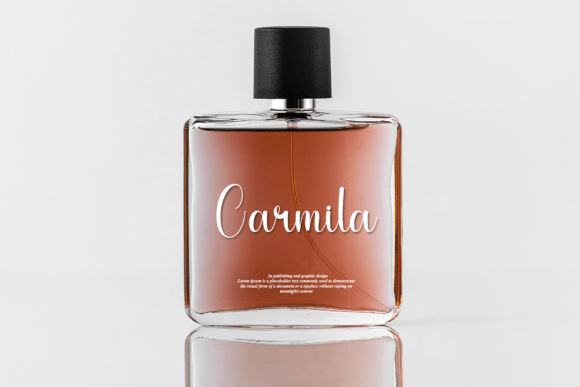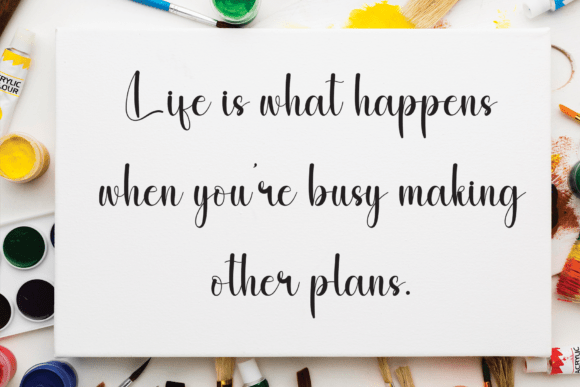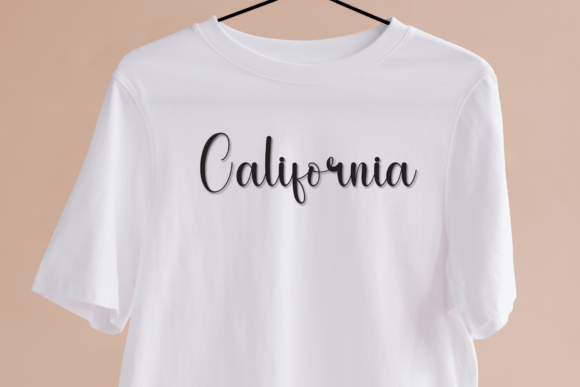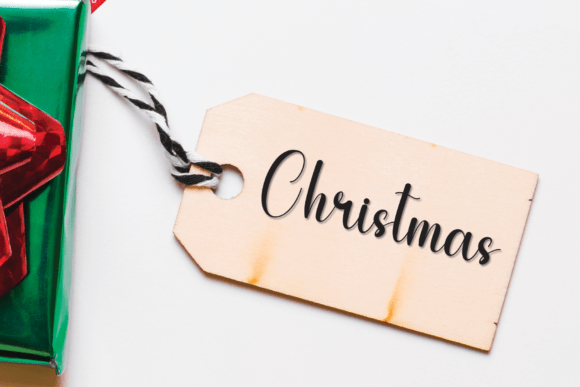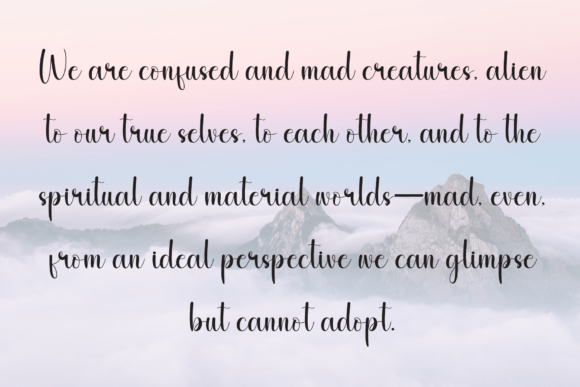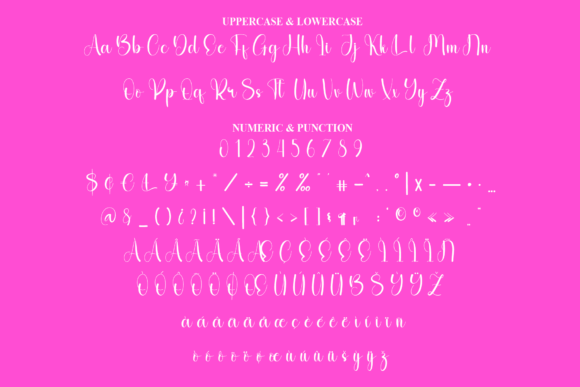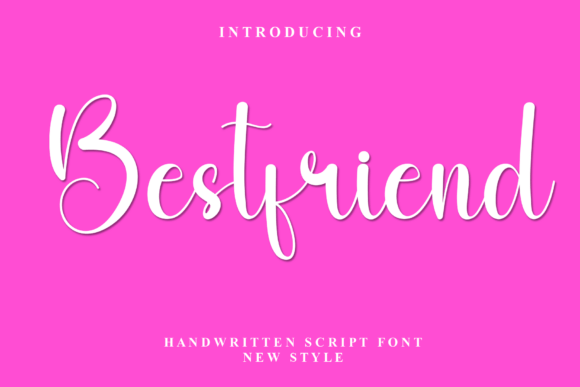
The Perfect Match: Discovering the Bestfriend Font
Remember that moment when you stumbled upon the perfect font for a project, and everything just clicked? It’s a feeling that’s hard to describe, but you know it when you see it. For designers, finding that one special font can be a game-changer, and today we’re excited to introduce you to a true gem – the Bestfriend Font.
This stylish script font is designed to add a touch of elegance and sophistication to any design. With its fluid curves and carefully crafted letterforms, it captures the beauty of hand-drawn calligraphy with a modern twist. Whether you’re creating logos, invitations, packaging, or social media graphics, the Bestfriend Font is the perfect companion to help you deliver your vision with refined and polished details.
As a valuable addition to any designer’s toolkit, the Bestfriend Font offers versatility and visual appeal in equal measure. Its natural flow and polished details make it an ideal choice for a wide range of projects, and we can’t wait to see how you’ll use it to create something truly special.
- Unique Characteristics: Bestfriend Font features a friendly, approachable feel with rounded edges and a subtle texture, making it perfect for casual and informal designs.
Designer Review: Bestfriend Font
Overall, I think the Bestfriend Font has some lovely qualities that make it a great choice for certain projects. Here are a few things that stand out:
- ✨ Friendly and approachable feel: The font’s rounded edges and soft curves give it a warm, inviting atmosphere that’s perfect for projects targeting a younger audience.
- ✨ Highly legible: Even at smaller font sizes, Bestfriend Font remains easy to read, making it a great choice for body text or content-heavy projects.
- ✨ Stylish and modern: The font’s sleek design and subtle flair make it a great choice for modern, trendy projects that need a bit of edge.
- ⚠️ Limited font weights: The current version of Bestfriend Font only includes a few font weights, which may limit its versatility in certain projects.
- ⚠️ Not ideal for formal or professional projects: While the font is stylish and modern, it may not be the best choice for formal or professional projects that require a more conservative, traditional look.
Overall, I think the Bestfriend Font is a solid choice for projects that require a friendly, approachable feel. With a bit more development to add more font weights and improve its versatility, it could be a real winner in the design world.
Getting the Most Out of the Bestfriend Font
To get the most out of the Bestfriend Font, consider the following tips:
- Pair the Bestfriend Font with a bold or italic font to create visual interest.
- Use the Bestfriend Font for titles or headings to create a clear hierarchy of text.
- Experiment with different font sizes and colors to enhance the visual impact of the Bestfriend Font.
The Bestfriend Font is ideal for:
- Designing social media graphics and ads.
- Creating invitations and event materials.
- Developing branding materials and logos.